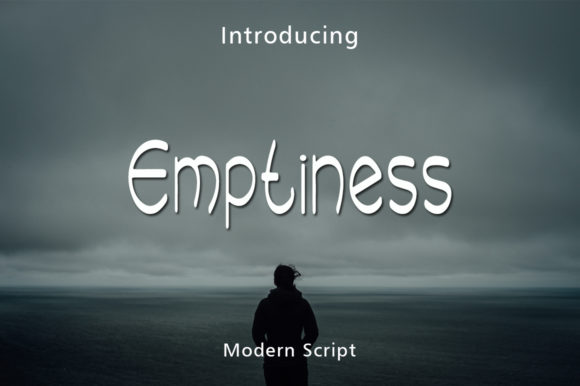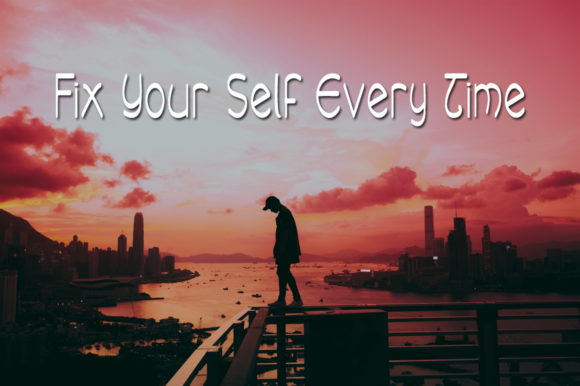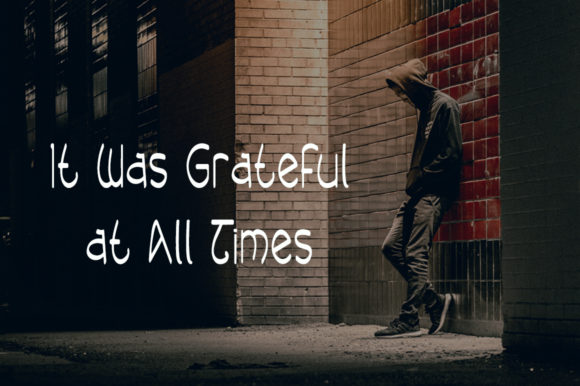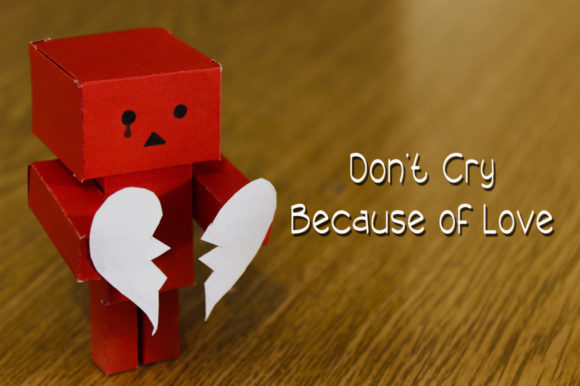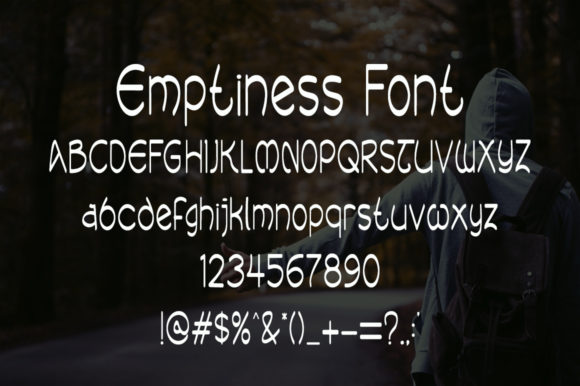
Emptiness Font
About Emptiness Font
Emptiness is a relaxed and cool handwritten font. It looks incredibly endearing and authentic. Use this great handwritten font to bring any DIY project to life!